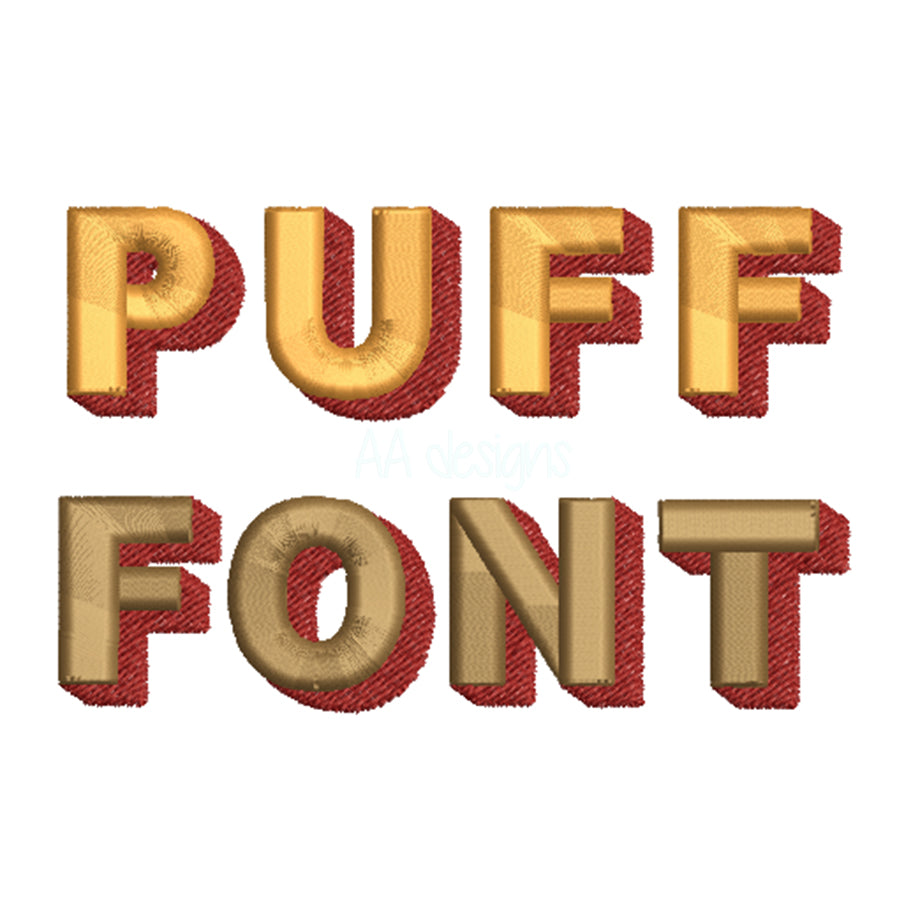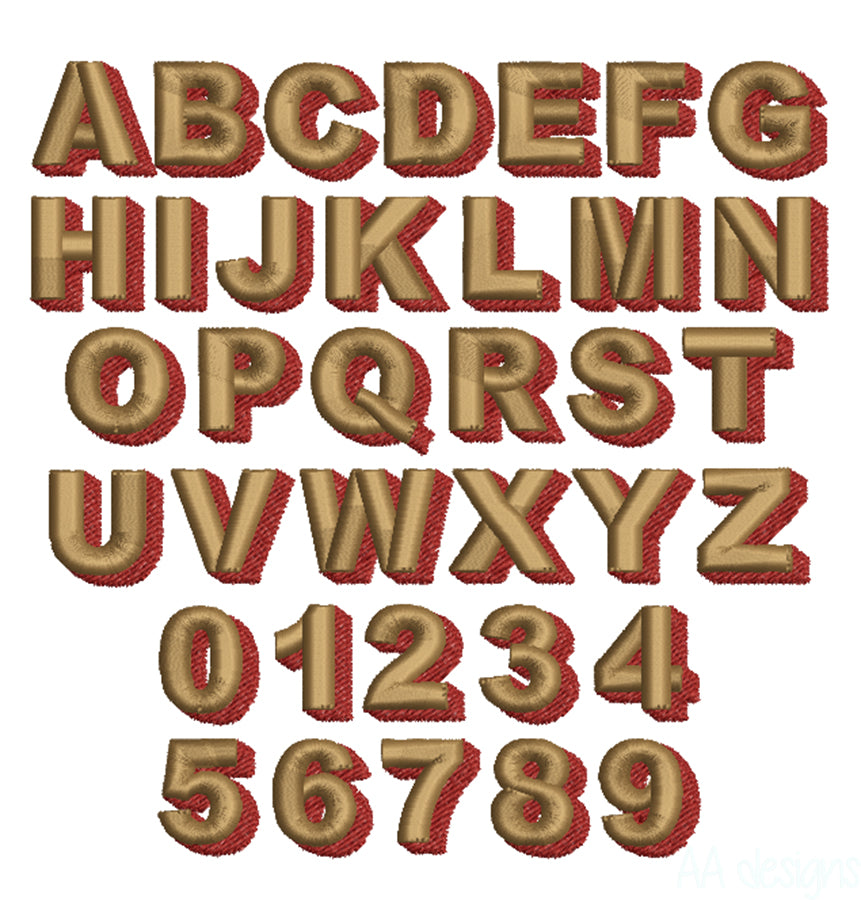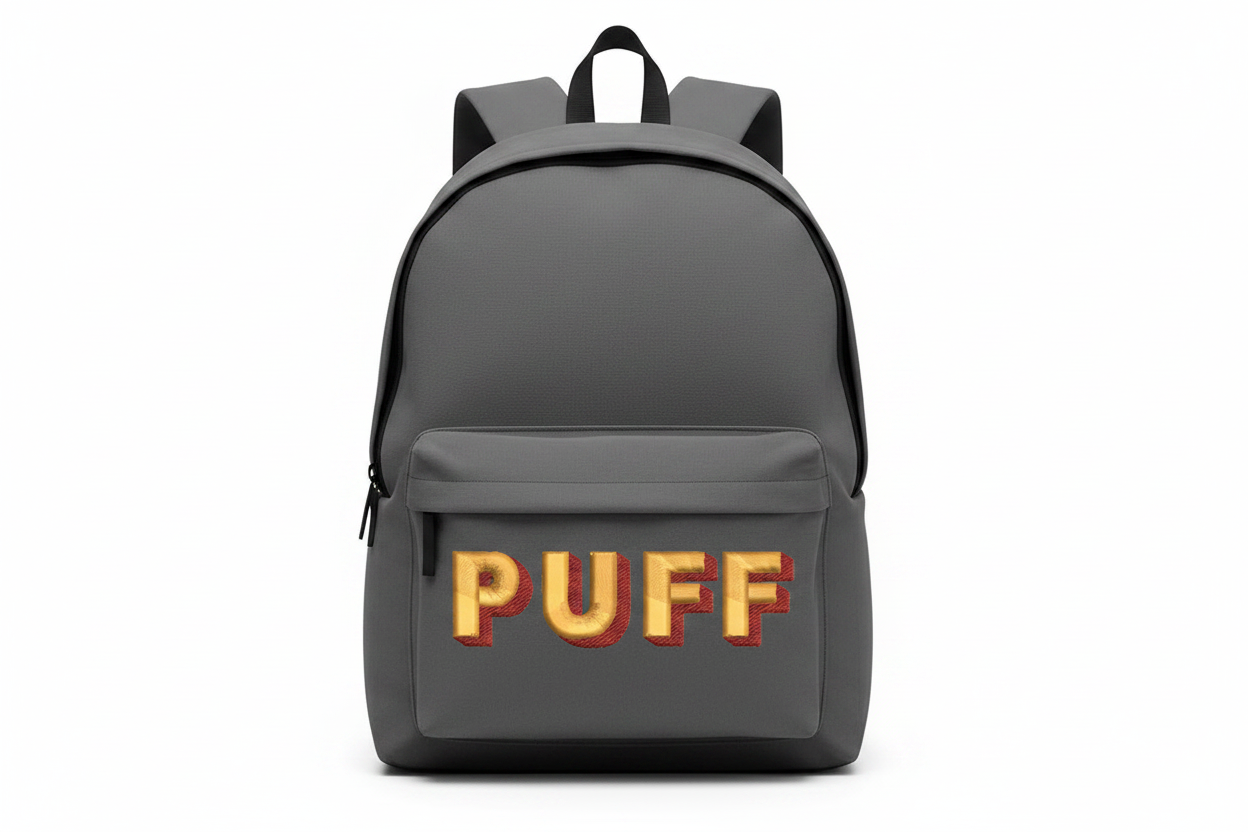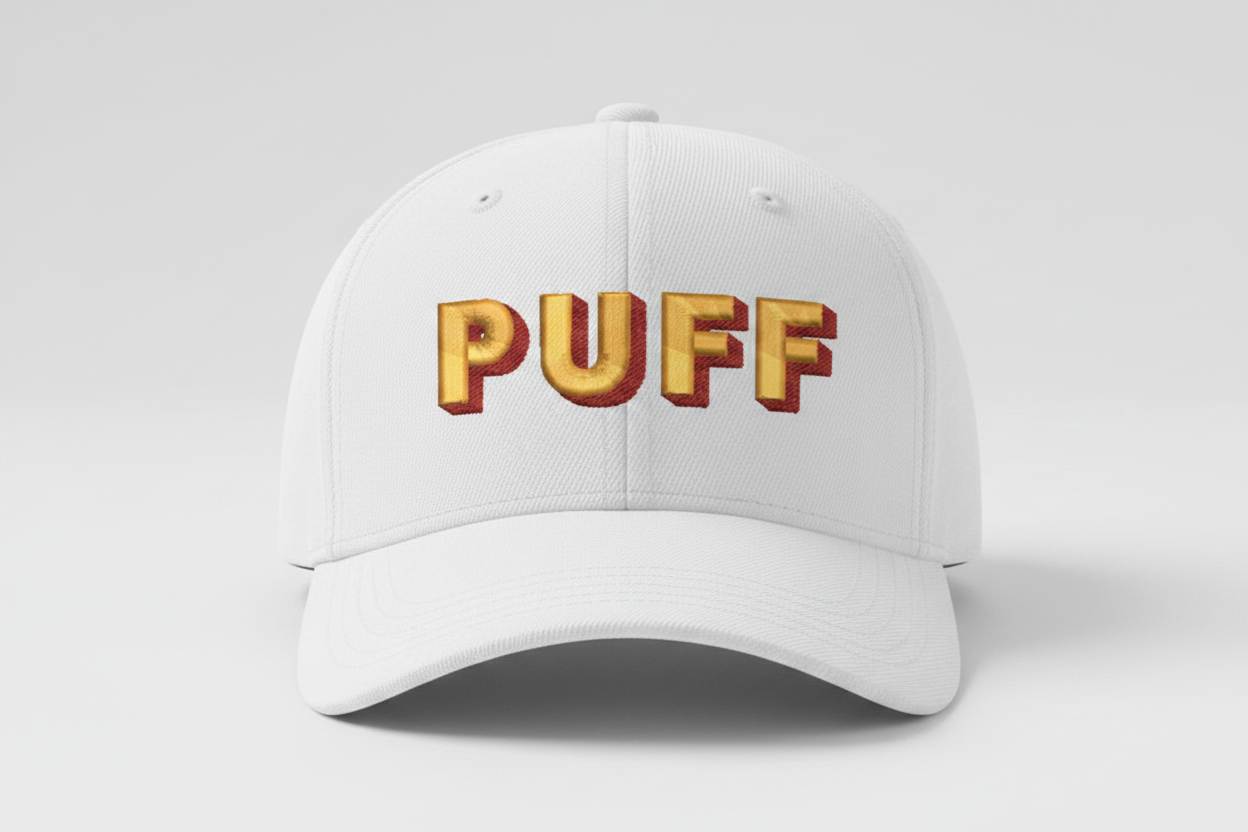
3D puff embroidery digital font. Shadow 3D puff font for embroidery. BX file also included
Instant-download machine embroidery 3D puff font — bold, chunky, and perfect for hats, backpacks, and apparel. Compatible with all major embroidery formats.
- 3D puff embroidery design
- Great for caps, backpacks, and more
This font comes with letters in 3 sizes, A-ZYou must use 3D puffy foam to achieve the 3D effect.
0.5”high
0.75” high
1” high